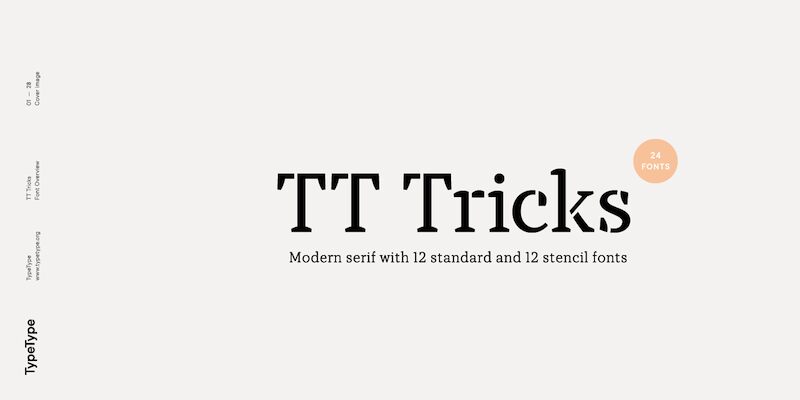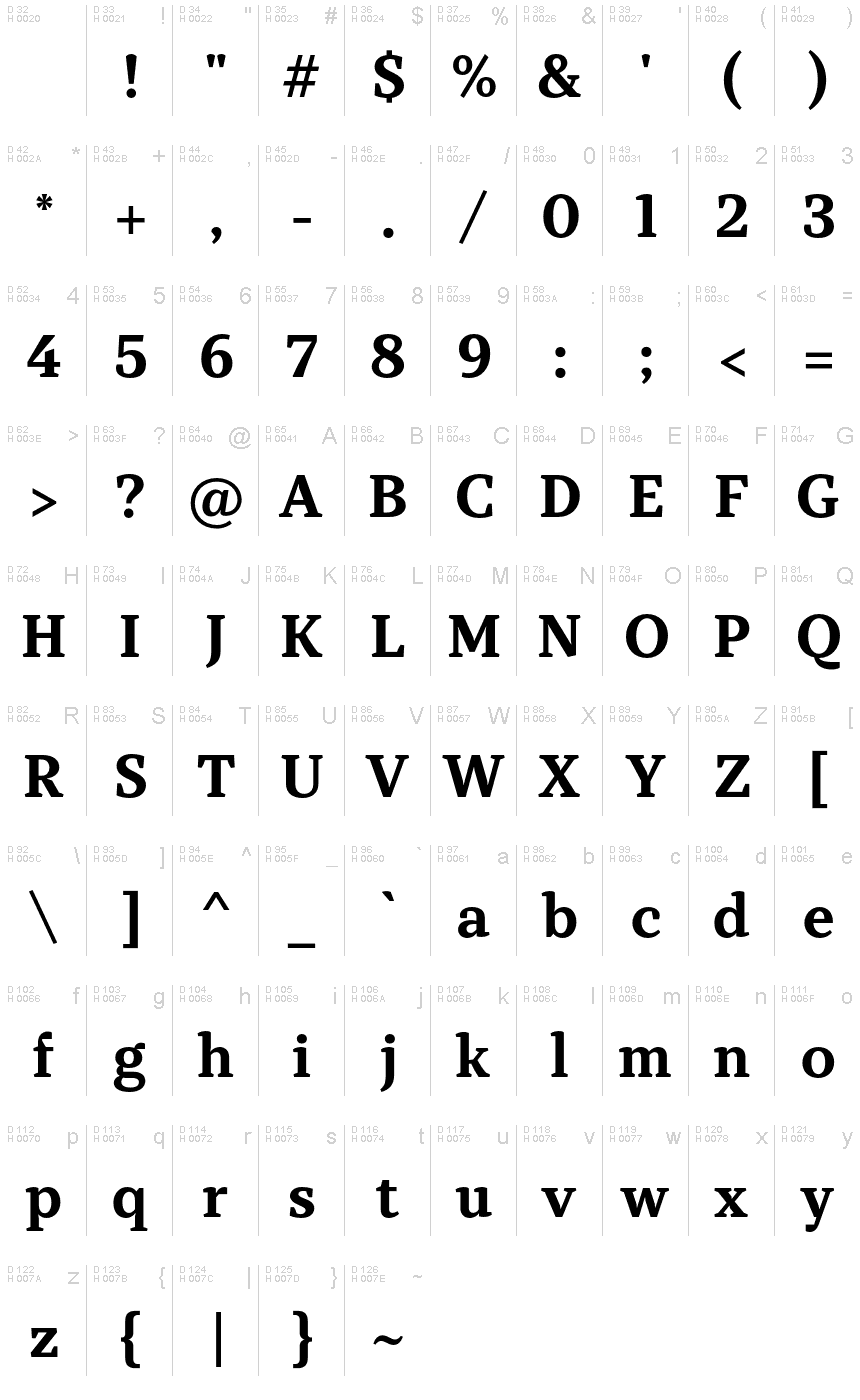
TT Tricks Bold is a stunning serif font designed by TypeType, perfect for projects that require a touch of elegance and sophistication. Its bold weight commands attention and adds a sense of authority to any text. Its classic look makes it ideal for branding, advertising, editorial design, and packaging. TT Tricks Bold's distinctive style is versatile enough to suit various industries like fashion, beauty, hospitality, or law. With its sharp serifs and clean lines, this font is sure to make an impact on your audience while maintaining readability. Impress your clients with TT Tricks Bold and elevate your designs to the next level!